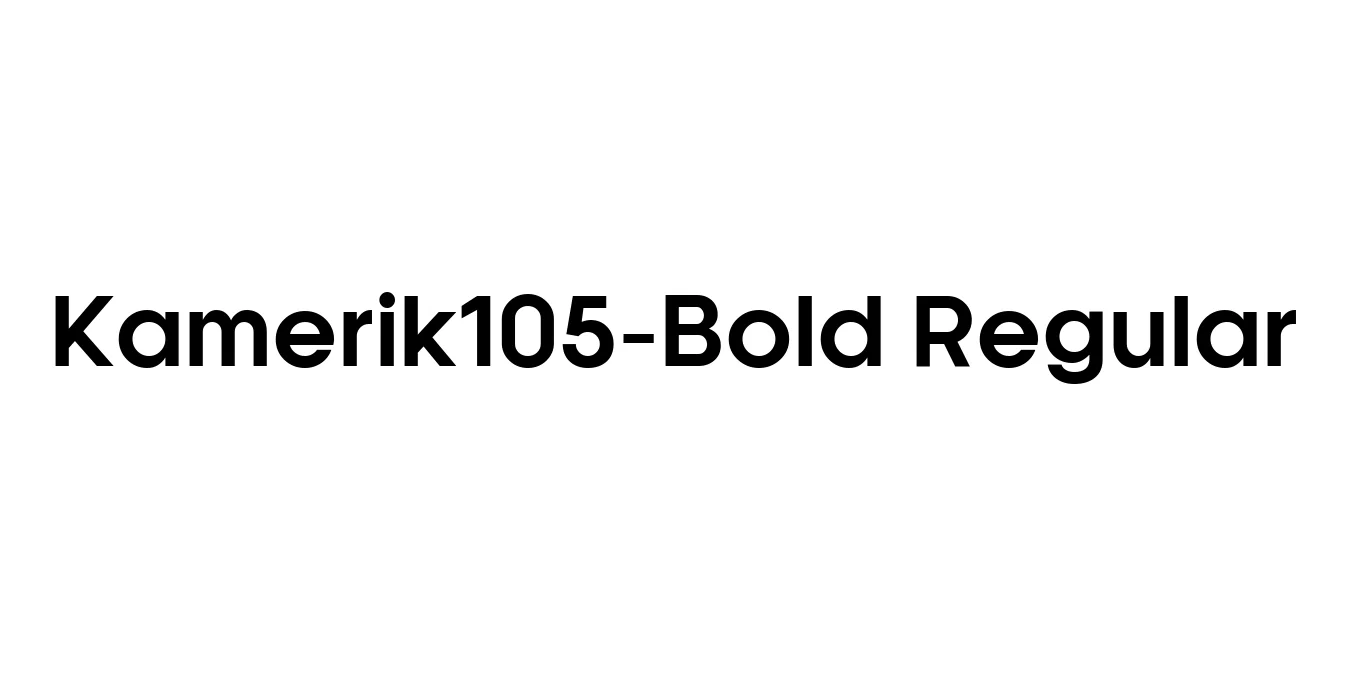
Kamerik105-Bold Regular
Designed by Adrian Talbot
Kamerik 105 is a sophisticated geometric sans-serif typeface family designed by Adrian Talbot. It is inspired by the classic proportions of early 20th-century fonts such as Johnston Sans and Gill Sans, while maintaining a distinctly modern edge. The font is characterized by its clean, circular forms and a generous x-height, which ensures excellent legibility across various sizes and mediums.
The Bold Regular variant of Kamerik 105 offers a robust and authoritative presence, making it an excellent choice for display purposes. Its precise geometric construction and balanced stroke weights make it a versatile tool for designers looking for a typeface that communicates both stability and contemporary elegance in corporate, digital, and editorial environments.
Kamerik105-Bold Regular Best Uses
Powerful for logos and corporate identity systems that require a solid, modern look.
High-impact headlines for magazines, journals, and digital publications.
Clear and attention-grabbing for posters, billboards, and social media marketing graphics.
Effective for bold UI elements like buttons and navigation headers.